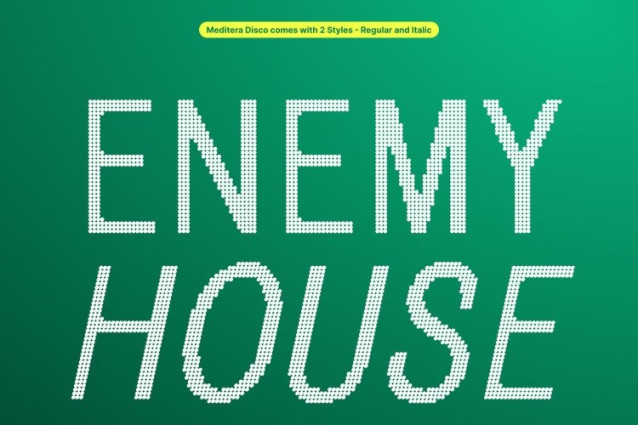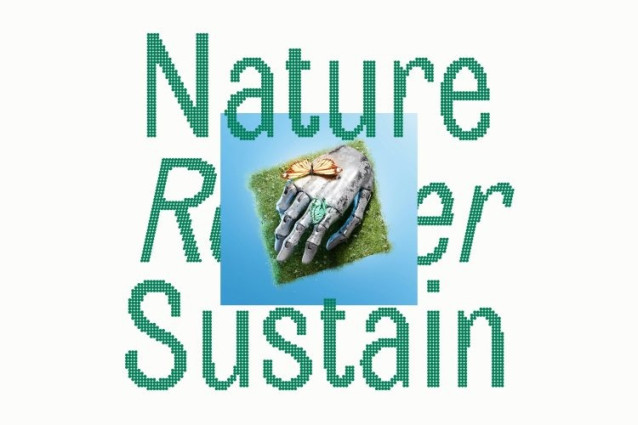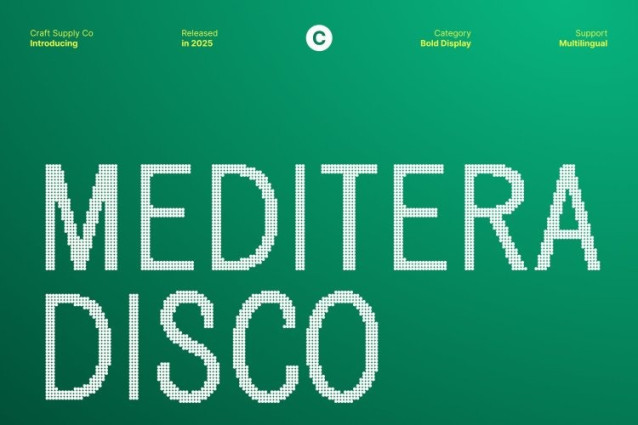
Meditera Disco Font This clean, condensed sans serif font offers exceptional readability with sleek, precise shapes. Its modern design emphasizes clarity and professionalism, making it ideal for contemporary layouts that require a polished, structured, and efficient typographic presence.
Disco Style for Unique and Festive Personality
Enhanced with a disco effect, this font gains a glamorous, sparkling touch that brings energy and vibrancy to each character. The combination of modern minimalism with festive flair creates a distinctive style that stands out in both print and digital designs.
Perfect for Posters, Branding, and Modern Projects
Ideal for clean poster titles, branding materials, social media graphics, and editorial designs, this font elevates projects with its blend of professionalism and visual excitement. Its condensed form ensures maximum impact even in limited spaces.
Sleek, Glamorous, and Visually Striking
By combining precise, modern sans serif forms with sparkling disco detailing, this typeface delivers a font that is stylish, energetic, and unique. It’s the perfect choice for designers seeking clarity, elegance, and festive flair in their typography.